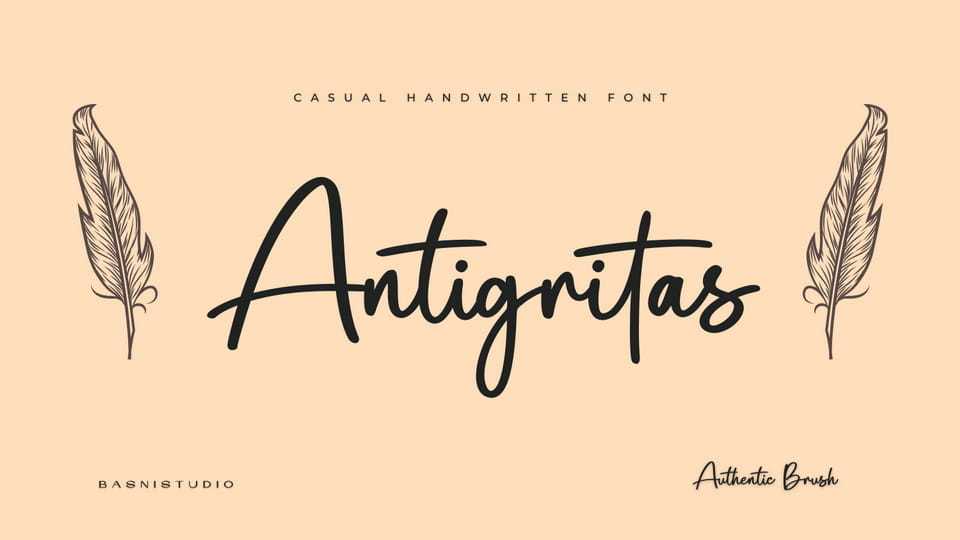
Download Antigritas font, a handwriting typeface created with real pen strokes for a natural look and casual touch to everything from branding and social media to invitations and packaging.